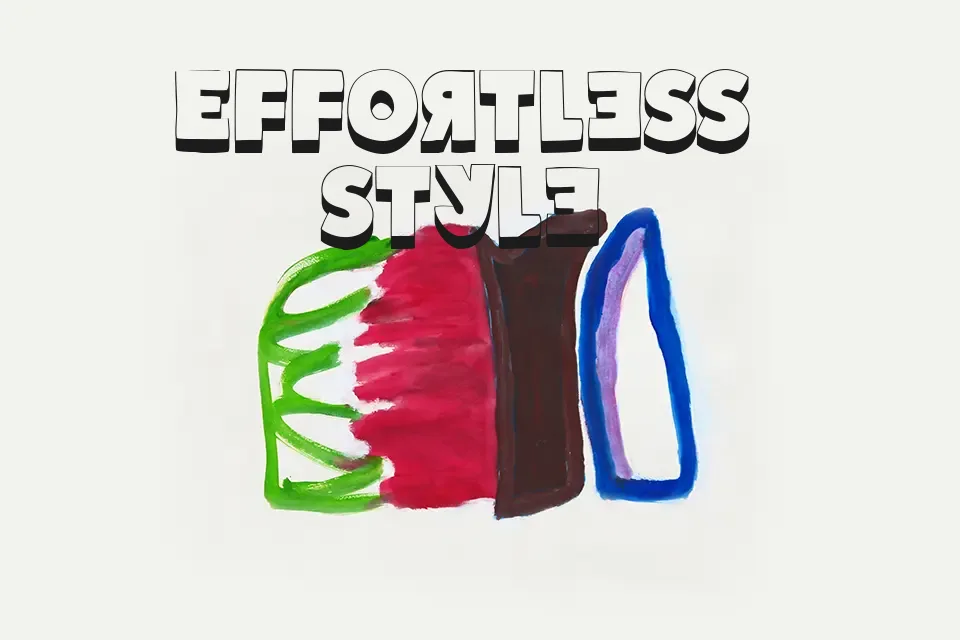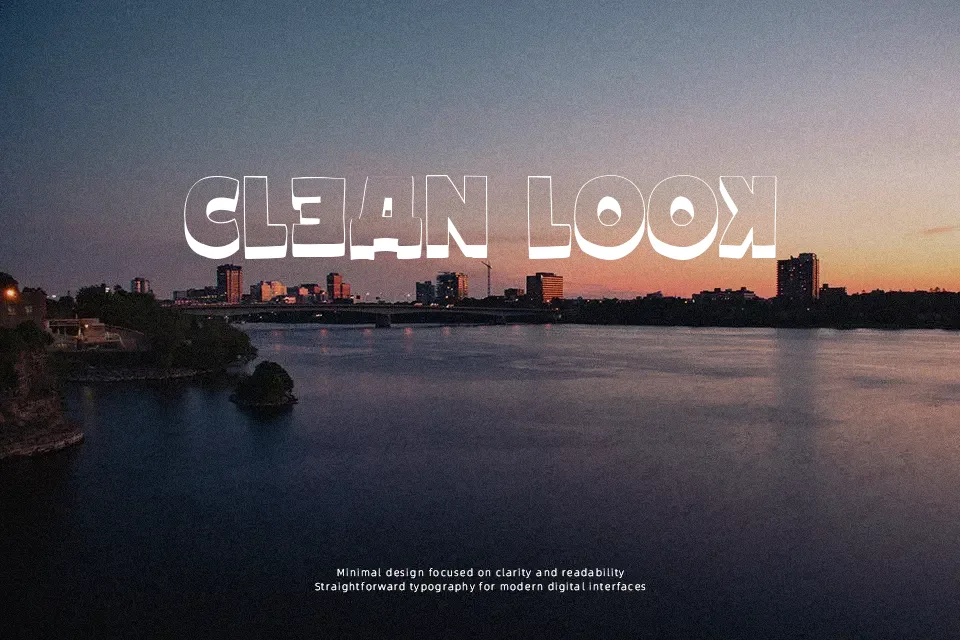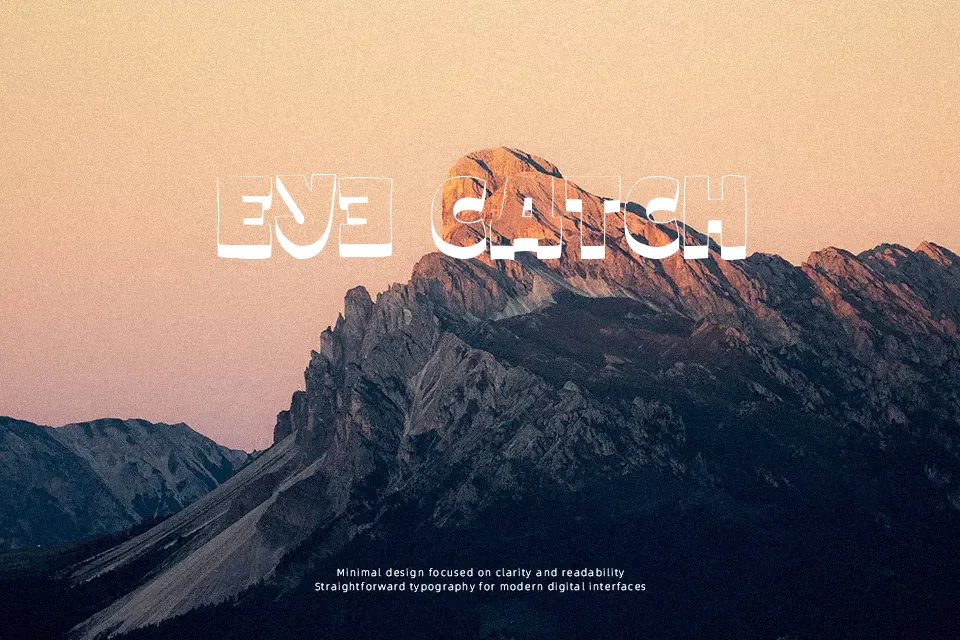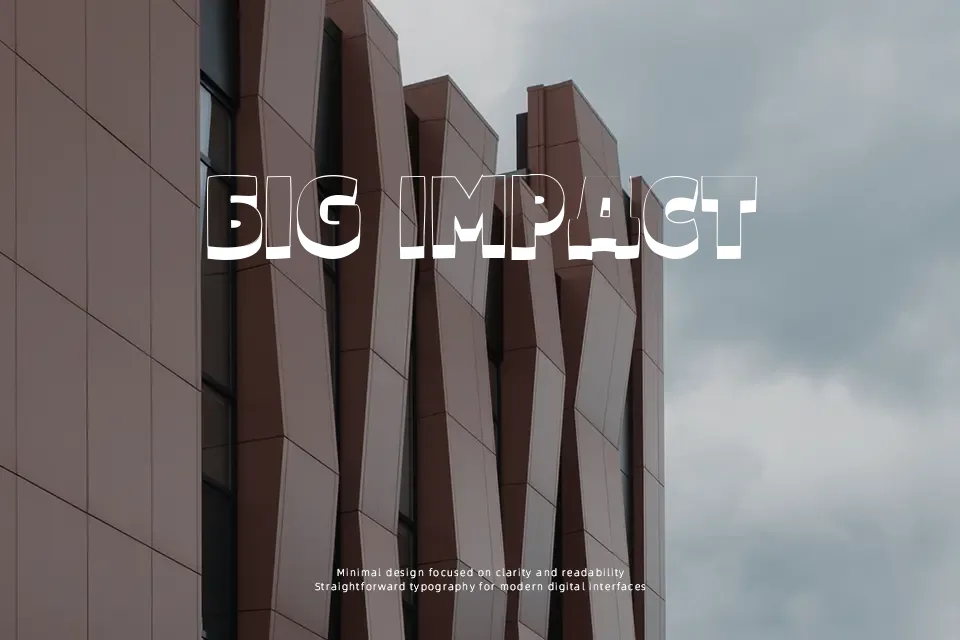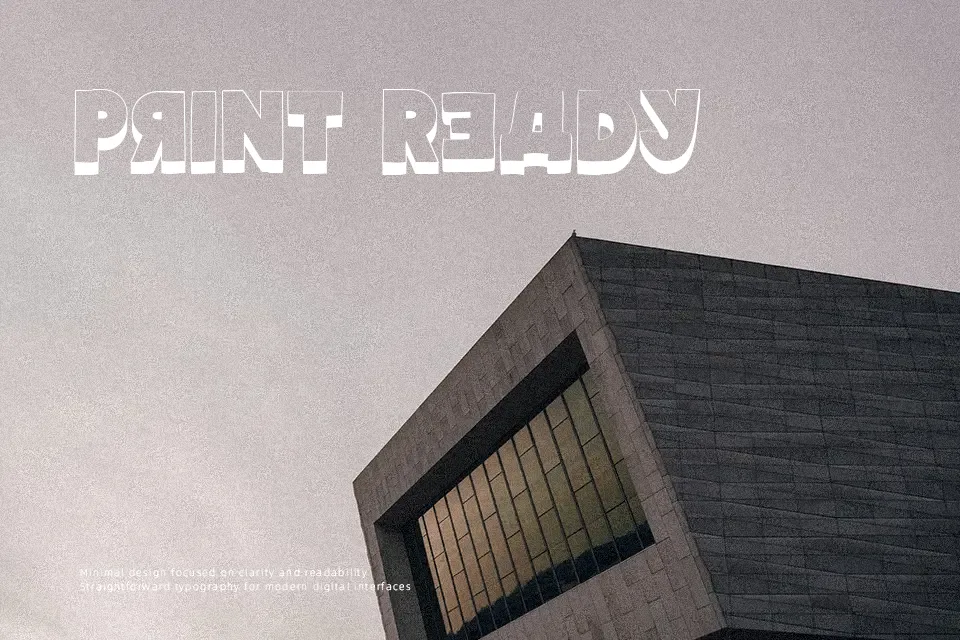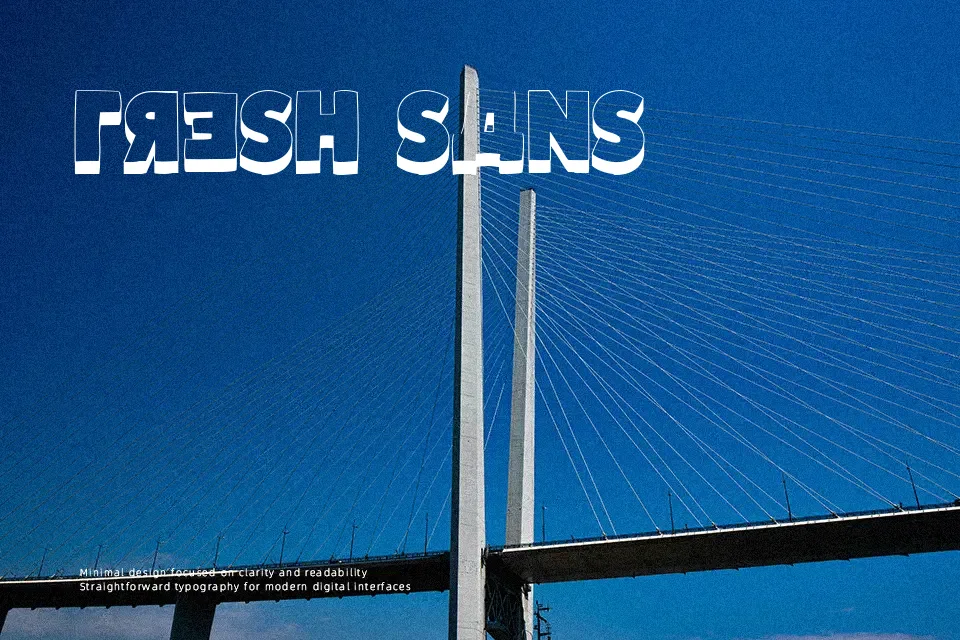
Blitz Font
Characterized by an extruded three-dimensional structure, Blitz delivers an undeniable visual punch. The letterforms feature heavy strokes combined with sharp angles, creating a pronounced drop-shadow effect that practically jumps off the page. Its overall style leans into a playful, cartoon-like decorative aesthetic. This typeface performs exceptionally well for eye-catching video thumbnails, arcade game titles, and vibrant children’s toy packaging. Because the characters are inherently robust, it establishes visual hierarchy effortlessly. However, its complex 3D rendering makes it entirely unsuitable for extended reading formats like editorial columns or small mobile interface menus, where the heavy weight causes legibility issues. Deployed at large scales, it remains an energetic typographic powerhouse.
High-impact video thumbnails
Arcade or action game titles
Vibrant toy packaging
Bold event posters requiring maximum visibility
Extended paragraphs or body text
Small-scale mobile interface menus
Corporate documents demanding a serious tone
Perfect for gaming, headline, and kids, with a bold and comic style.